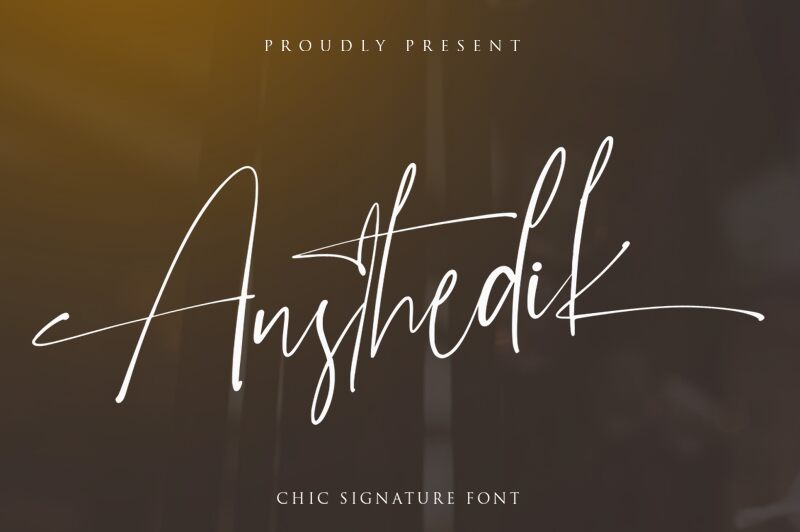
Austhedik
Austhedik font is a handwritten masterpiece by Vultype, offering an elegant and fluid design with modern calligraphy style. This light font features an expressive flair with artistic flourishes that give it a sophisticated touch. Its flowing structure and exceptional attention to detail make it perfect for projects requiring a refined yet accessible look.
The free handwritten font is designed for logos, branding, invitations, greeting cards, posters, packaging designs, book covers, apparel prints, social media graphics, website headers, and business presentations.